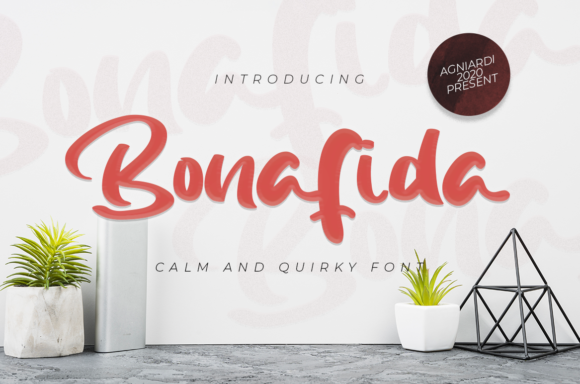
The Designer’s Delight: Bonafida Font
I’ll never forget the time I was working on a client’s branding project, and they specifically asked for a font that was “stylish, trendy, and would make their business cards stand out.” I scoured the internet, tried out countless fonts, but none seemed to fit the bill. That was until I stumbled upon Bonafida. This stunning display font has been a game-changer for me, and I’m excited to share its awesomeness with you! 😊
So, what makes Bonafida so special? Let’s dive into the good stuff! 🤩
- ✨ Stylish and trendy: Bonafida is perfect for making a statement with your designs. Its unique blend of modern and classic elements makes it both eye-catching and timeless.
- ✅ Versatile: Whether you’re creating digital designs, crafting, or making greeting cards, Bonafida adapts seamlessly to various projects.
- 💥 High-impact: This font is designed to make a statement. Use it to add a pop of personality to your designs and leave a lasting impression.
Now, I’m not saying it’s perfect. There are a few quirks to keep in mind:
- ⚠️ Limited use cases: Bonafida is a display font, so it’s best used in moderation. You wouldn’t want to overwhelm your readers with too much stylistic flair.
- 🤔 Glyph limitations: While Bonafida has a range of OpenType features, some users may find the glyph selection a bit limited compared to other fonts.
One of the standout features of Bonafida is its range of OpenType features and glyphs. To access these:
Experiment with different stylistic alternates, ligatures, and glyphs to add an extra layer of personality to your designs.
The Story Behind Bonafida
Bonafida was designed by a team of creatives who wanted to create a font that would inspire designers to push the boundaries of typography. With its unique blend of modern and classic elements, Bonafida is the perfect reflection of their vision.
| What is Bonafida best used for? | Bonafida is perfect for display purposes, such as headings, titles, and short paragraphs. It’s ideal for branding, advertising, and creative projects. |
| Is Bonafida suitable for body text? | While Bonafida can be used for body text, it’s not the most ideal choice. Its stylistic flair and unique elements make it better suited for display purposes. |
| Is Bonafida available in different weights and styles? | Bonafida comes in a range of weights and styles, making it versatile and adaptable to various design projects. |